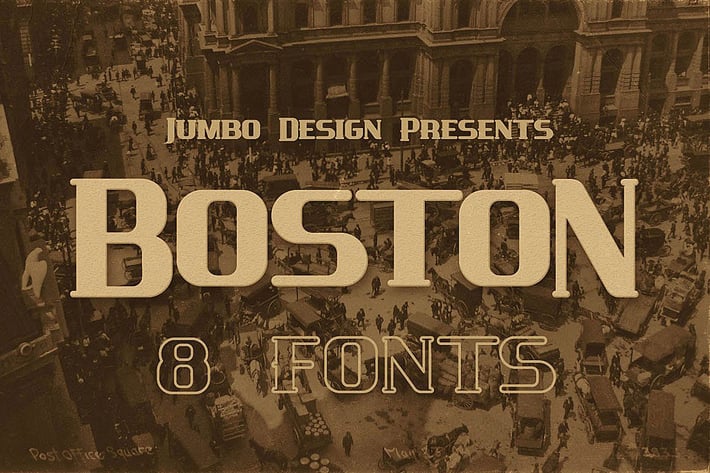
Boston - Vintage Style Font
Unique retro or vintage style serif custom font with 8 styles: regular and grunge, inline and inline grunge, bold and bold grunge, outline and outline grunge.